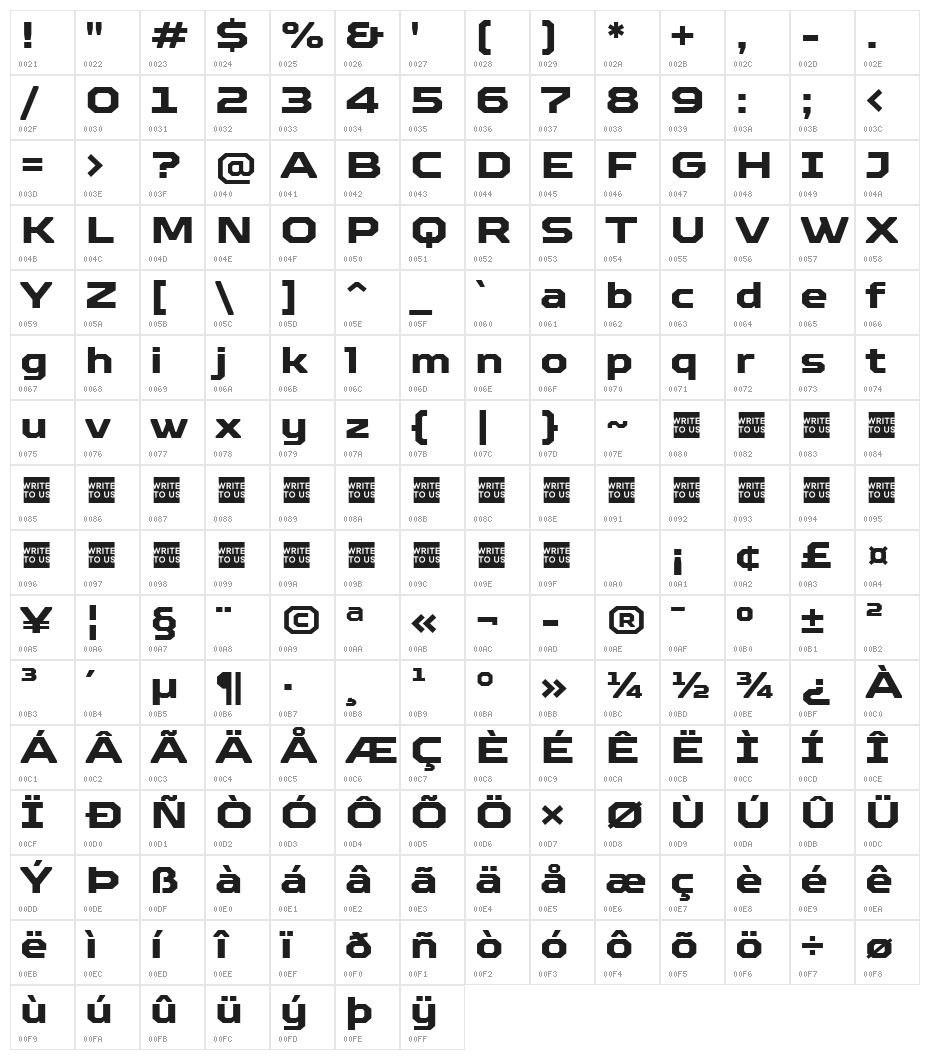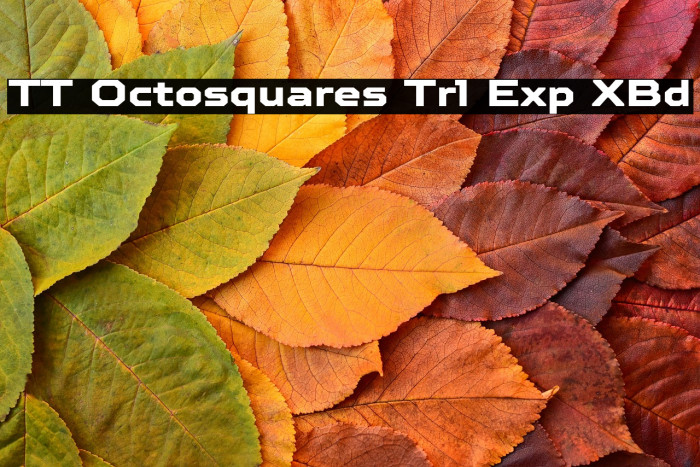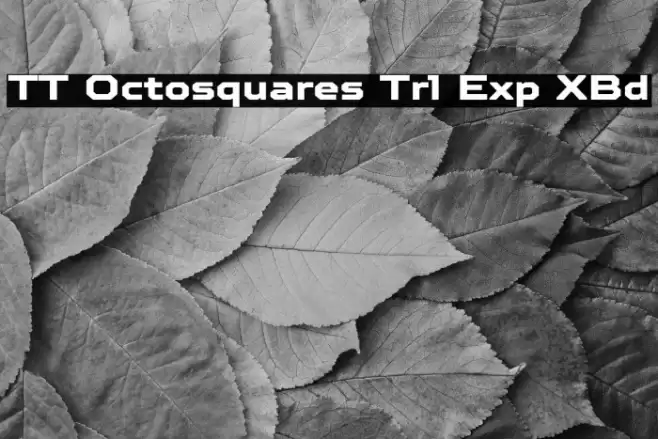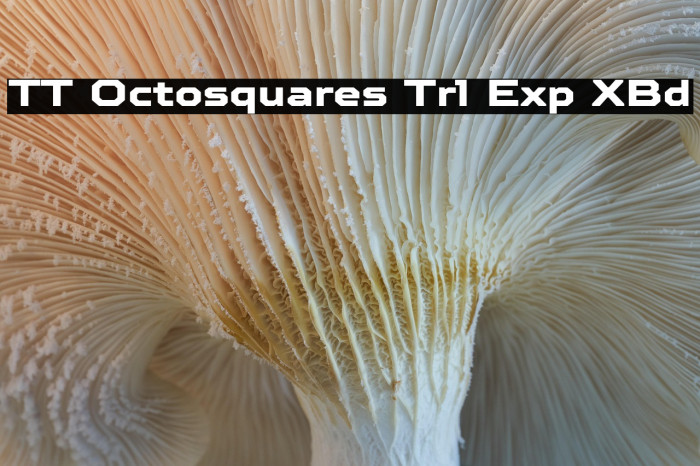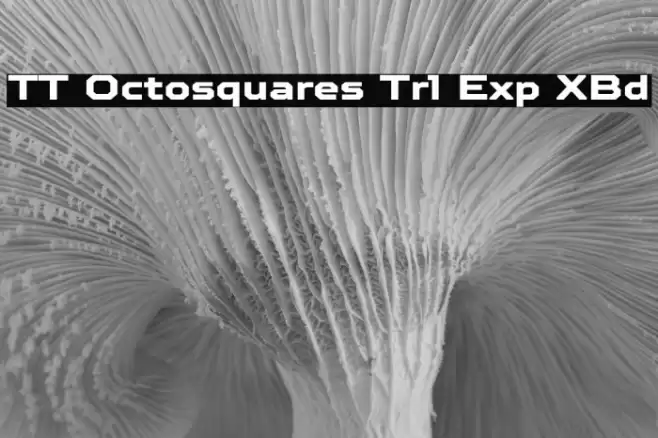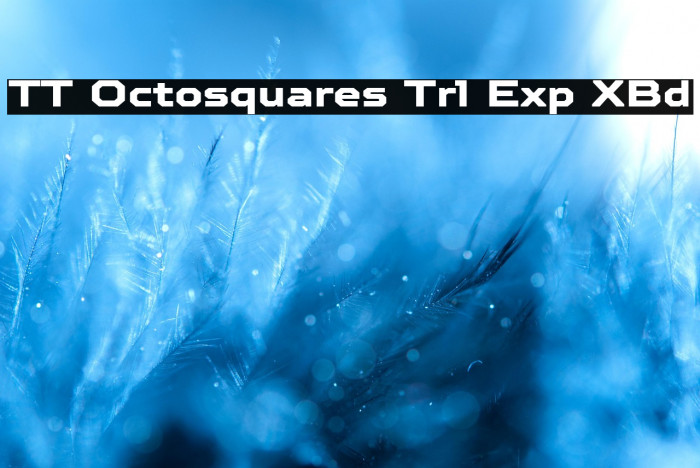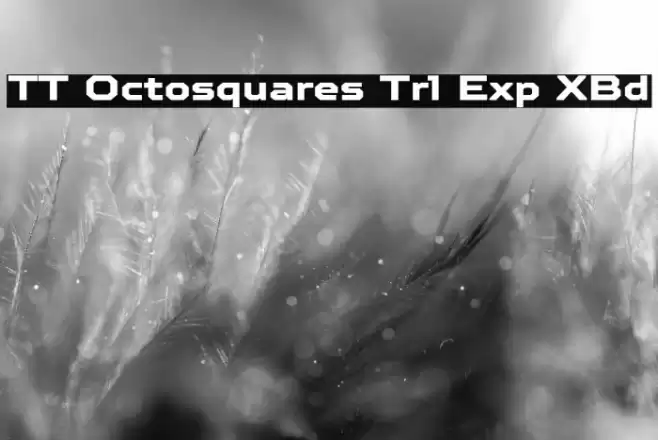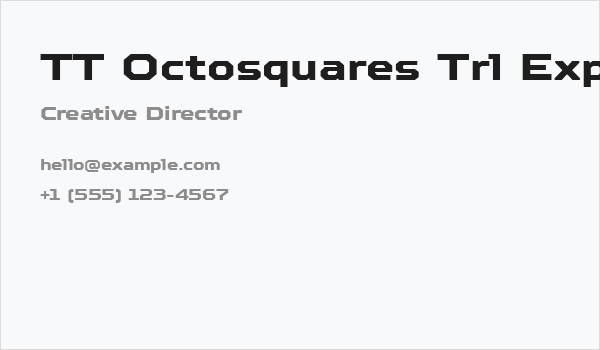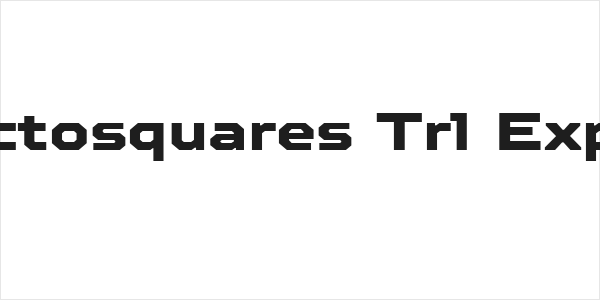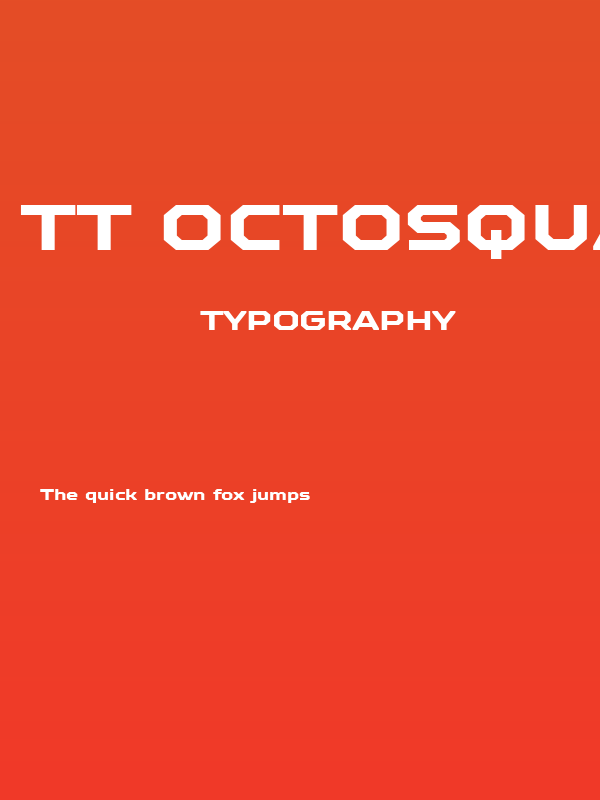
TT Octosquares Trl Exp XBd Font
TT Octosquares Trl Exp XBd Description
This font features a bold, geometric design with a distinctly modern and futuristic aesthetic. The characters are constructed with sharp angles and straight lines, giving them a blocky, robust appearance. The uppercase and lowercase letters maintain a consistent style, with the lowercase being slightly more compact. Numbers and special characters follow the same design principles, ensuring uniformity across all glyphs. The font's overall look is clean and structured, making it suitable for projects that require a strong visual impact.
| Proposed Projects | Ideal for technology branding, video game titles, posters, and modern advertising campaigns. |